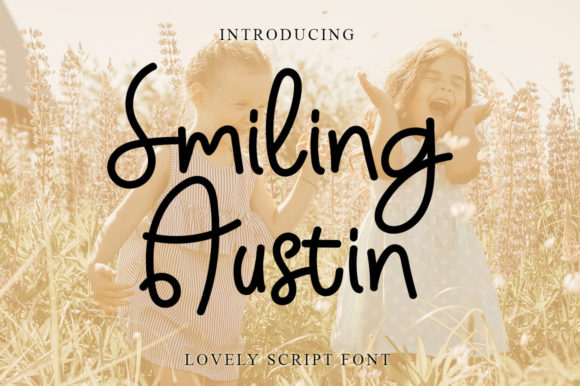
Adorn your designs with the remarkable and expressive Smiling Austin font, a handwritten masterpiece that exudes charm and individuality. This script font is not just a collection of letters; it's an art form that captivates and mesmerizes.
Meet Smiling Austin, a playful and whimsical font that dances across your designs with a touch of mischief and delight. Its lively strokes and charming curves are like a breath of fresh air, instantly adding a dash of personality to your projects.
With Smiling Austin, you're not just downloading a font; you're inviting a storyteller into your creative space. Each letter is a stroke of genius, a testament to the artistry of its creator, Bill Kiss Studio. Let your designs speak volumes with this remarkable font.
Unlock the potential of your creative visions with Smiling Austin. Its versatility knows no bounds, making it the perfect choice for a wide range of projects. From heartfelt greeting cards to whimsical invitations, from eye-catching logos to stunning social media graphics, Smiling Austin will elevate your designs to new heights.
Elevate your designs with Smiling Austin, the font that turns your words into art. Its captivating charm and playful spirit will infuse your projects with irresistible appeal. Dare to be different, dare to stand out. Embrace Smiling Austin today and let your creativity soar.